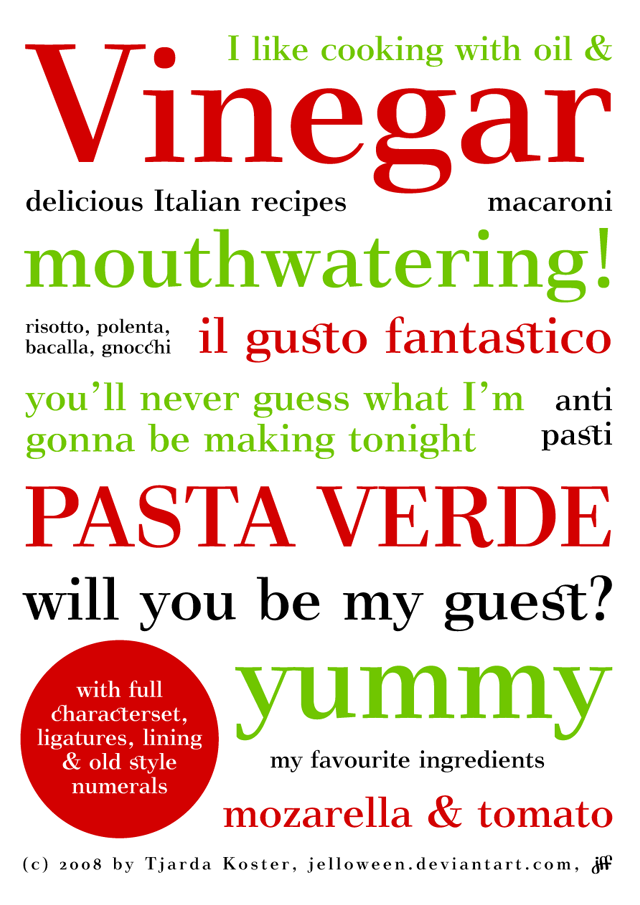
Font: VINEGAR - free by *jelloween is an awesome and very useful font everyone needs in their collection. Download it! :D
Yay, I made a font again! I've learned so much about spacing, kerning, old style numerals, ligatures and Opentype feature programming from designing this. Took me about 4 weeks to finish it, but I am satisfied